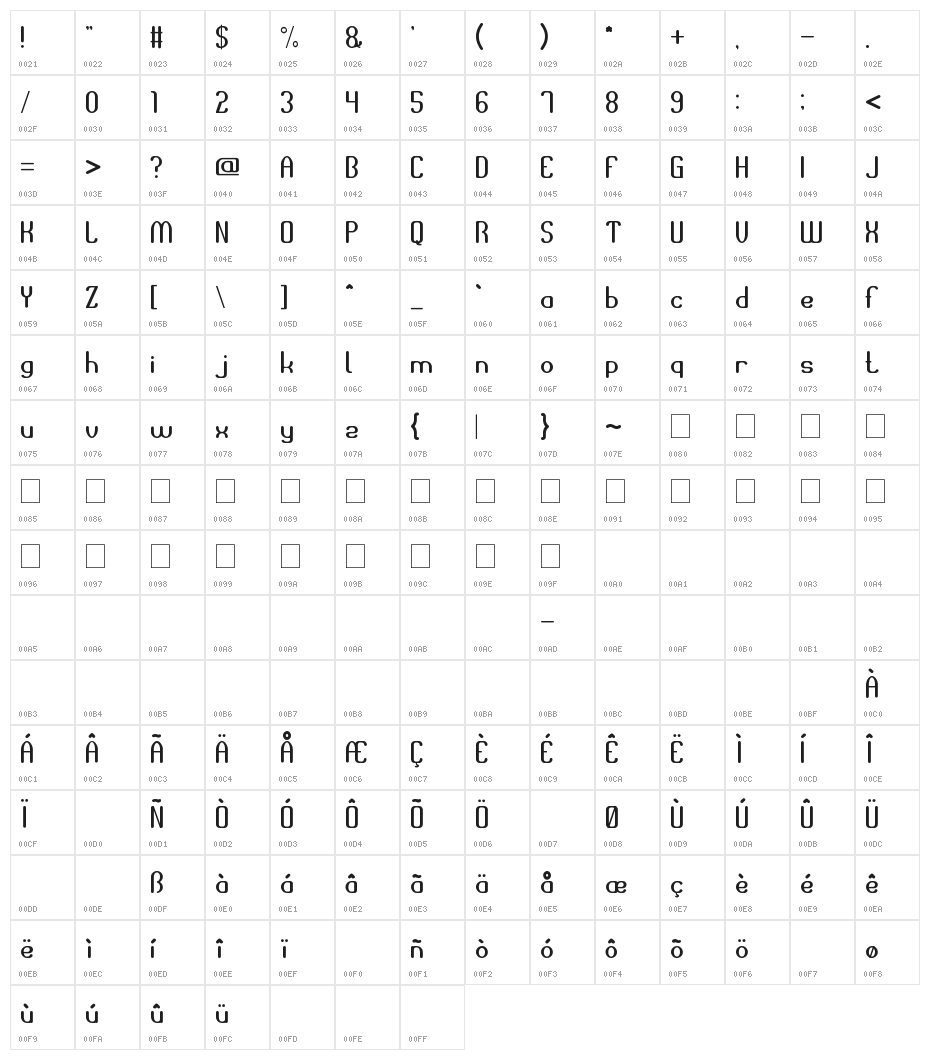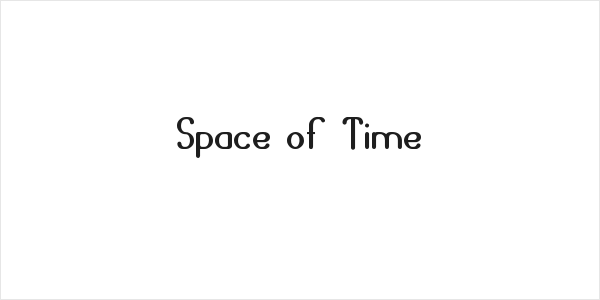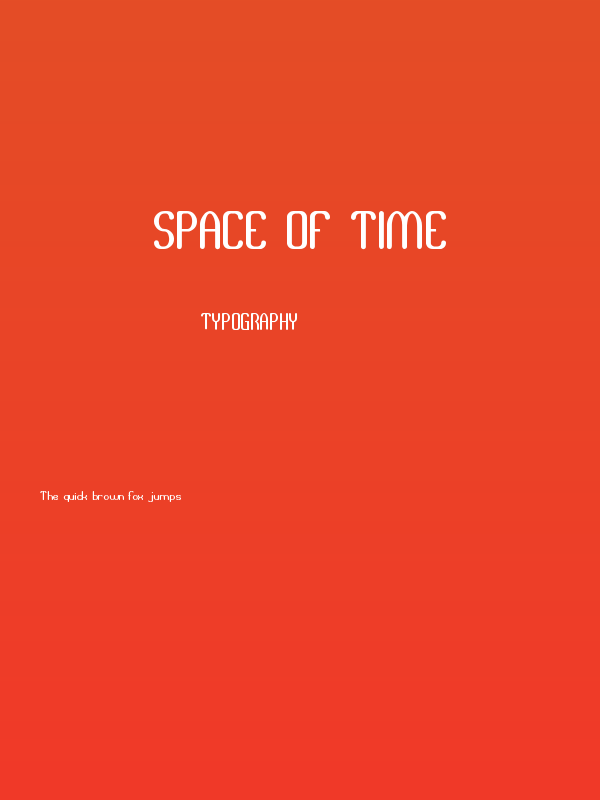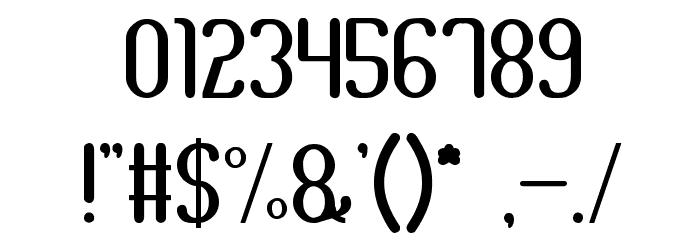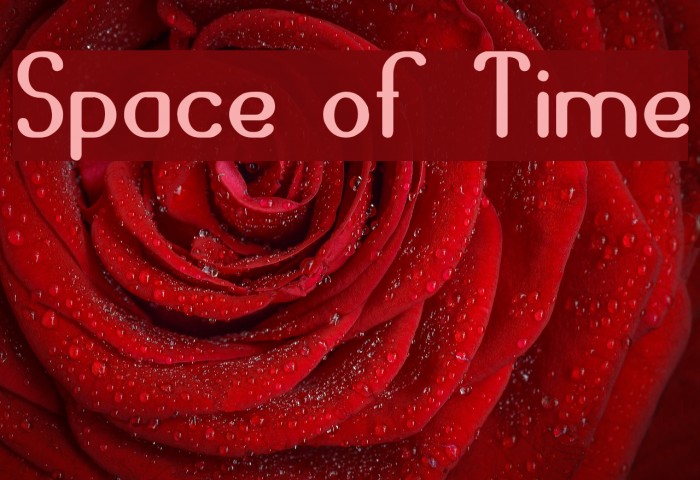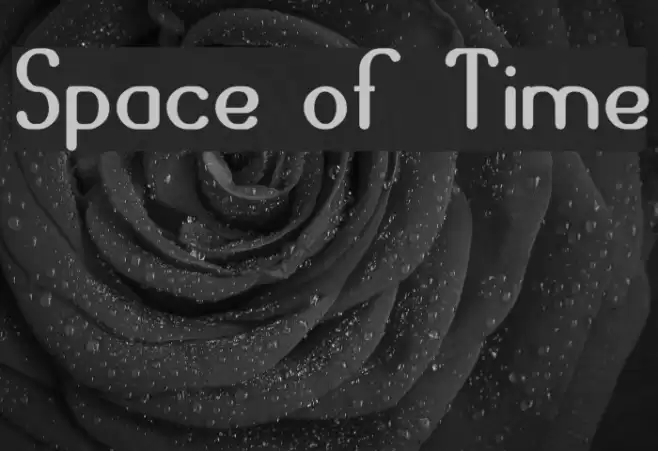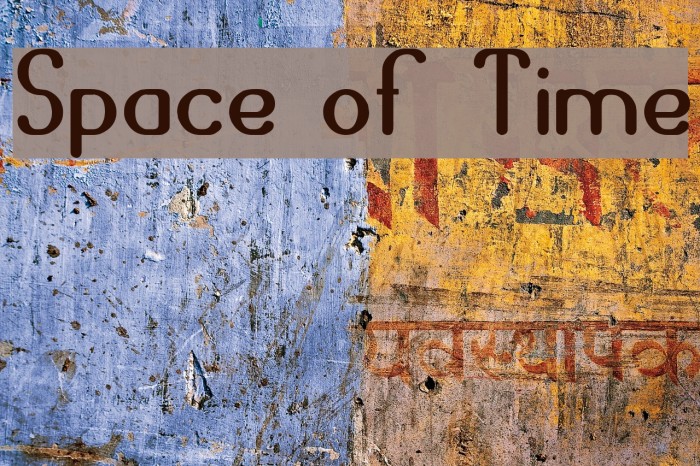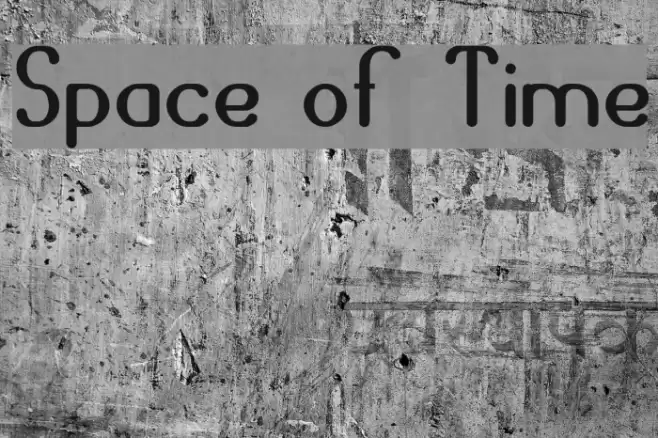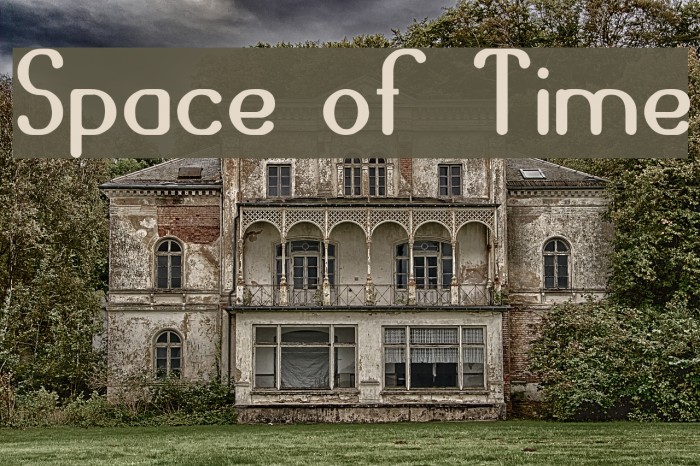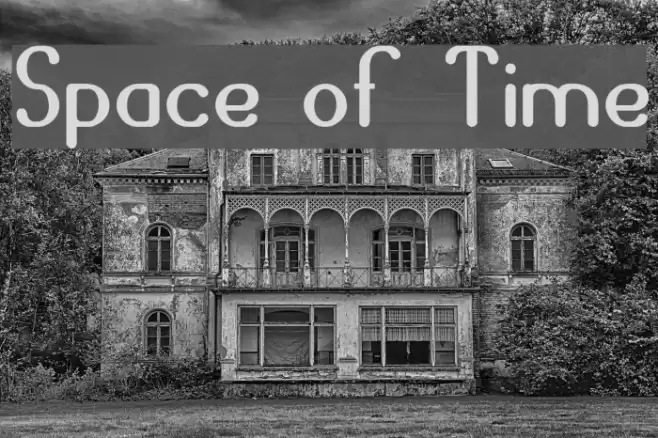
Space of Time Font
Space of Time Description
This font features a unique blend of modern and retro elements, characterized by its rounded, tubular letterforms. The uppercase letters are bold and prominent, with a consistent stroke width that gives a uniform appearance. The lowercase letters maintain the same rounded aesthetic, with a playful yet structured feel. Numbers and special characters follow the same design principles, ensuring a cohesive look across all glyphs. The font's overall style is both approachable and distinctive, making it suitable for a variety of design applications.
| Overall Style | Modern, Retro |
| Proposed Projects | Ideal for branding, posters, and digital media where a modern yet approachable look is desired. |